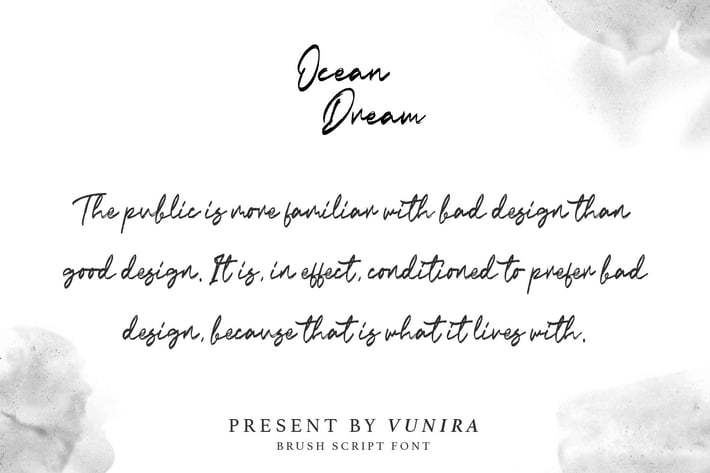
Ocean Dream | Brush Script Font
Ocean Dream | Brush Script Font with a calligraphy style, So beautiful on invitation like greeting cards, branding materials, business cards, quotes, posters, and more!